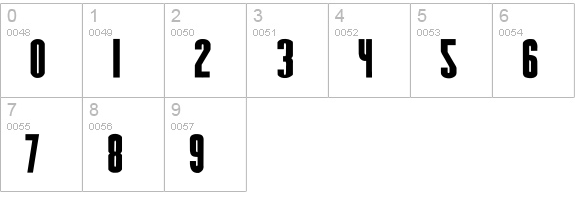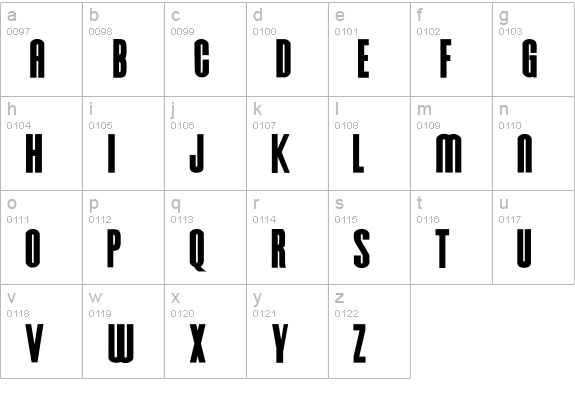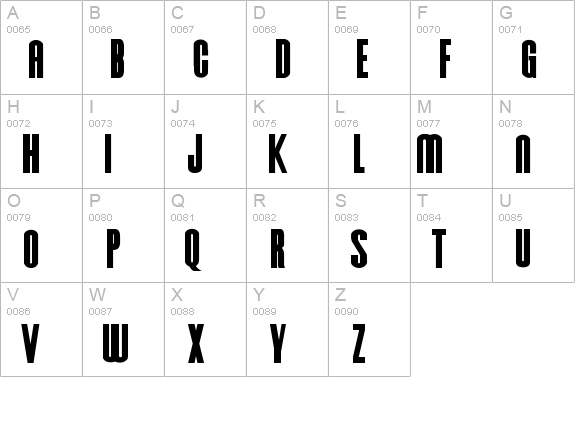
Hursheys font is a modern and stylish typeface that exudes elegance and sophistication. With its clean lines and sleek design, this font is perfect for a wide range of projects, from branding to editorial design. The versatility of Hursheys font makes it a must-have for designers looking to elevate their work with a touch of class. The best part? Hursheys font is available for free download at FontsMarket.com. This means that you can access this high-quality font without breaking the bank, making it a valuable addition to your creative toolkit. Don't miss out on the opportunity to enhance your designs with the timeless beauty of Hursheys font - download it today and take your projects to the next level!